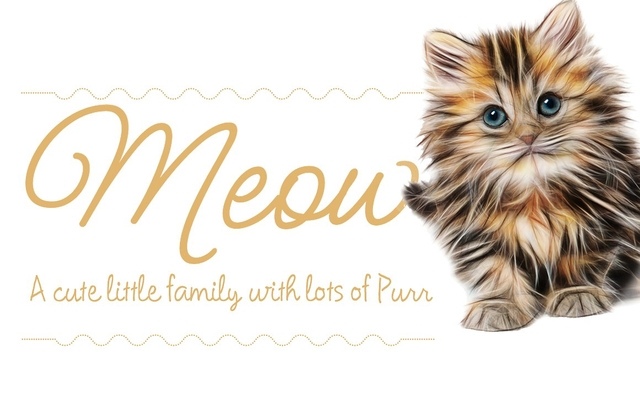
Meow ROB Script Font
Meow ROB Script Font is perfect for pet store branding, veterinary clinic communications, cat café signage, animal shelter materials, playful children's book illustrations, cute greeting card designs, whimsical pet product packaging, feline-themed social media graphics, adorable pet photography studios, and authentic cat-loving community communications.
What makes Meow ROB Script Font so exciting is its delightful embodiment of feline charm and playful cat personality that captures the adorable nature of cats and the heartwarming appeal of pet companionship through whimsically crafted script typography. This playfully designed typeface features flowing letterforms with cat-inspired proportions and feline-influenced character variations that immediately convey cuteness, playfulness, and the transformative power of pet love. The font's playful construction and cat-themed aesthetic create an instant sense of feline charm and pet-loving warmth, making it ideal for projects that need to communicate pet affection, animal care, and the life-enriching power of pet companionship to audiences seeking authentic pet experiences and meaningful animal connections.
The Meow ROB Script Font family typically includes multiple playful weights and cat styles, often featuring light through bold variations along with adorably flowing italic versions and pet-optimized alternatives. Cat-themed script font collections frequently offer additional feline elements such as paw symbols, cat ornaments, and pet decorations that enhance the authentic animal-loving aesthetic and provide designers with comprehensive tools for creating genuinely pet-friendly and adorably engaging communications.
The feline nature of Meow ROB Script Font makes it particularly effective for targeting demographics that value pet companionship and animal care in their lifestyle and emotional choices. Pet marketers and animal care professionals will find this font especially valuable for materials that must establish immediate pet credibility and connect with audiences seeking authentic animal experiences and meaningful pet engagement.
What sets Meow ROB Script Font apart is its ability to convey cat charm while maintaining the professionalism necessary for effective pet business communication and animal care brand expression. This balanced characteristic makes it suitable for both playful pet applications and serious animal care contexts where projecting pet expertise and maintaining adorable accessibility must work together harmoniously.
Professional designers recognize that Meow ROB Script Font brings invaluable pet credibility to projects across industries including veterinary services, pet retail, animal welfare, and pet-loving lifestyle branding. Its feline character and adorable appeal make it essential for organizations whose mission centers on promoting pet care, advancing animal welfare, and creating meaningful connections between pet love and community compassion.
The thoughtfully crafted pet authenticity of Meow ROB Script Font ensures consistent animal-loving messaging across all pet-focused communication applications while honoring the fundamental importance of compassion and care in pet typography.